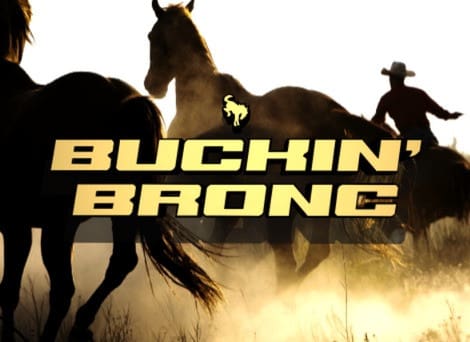
Buckin ‘ Bronc Font
Buckin ‘ Bronc Font, This bundle features strong, confident and powerful typefaces designed to work great with sports logos, club branding, apparel applications, labels and more.